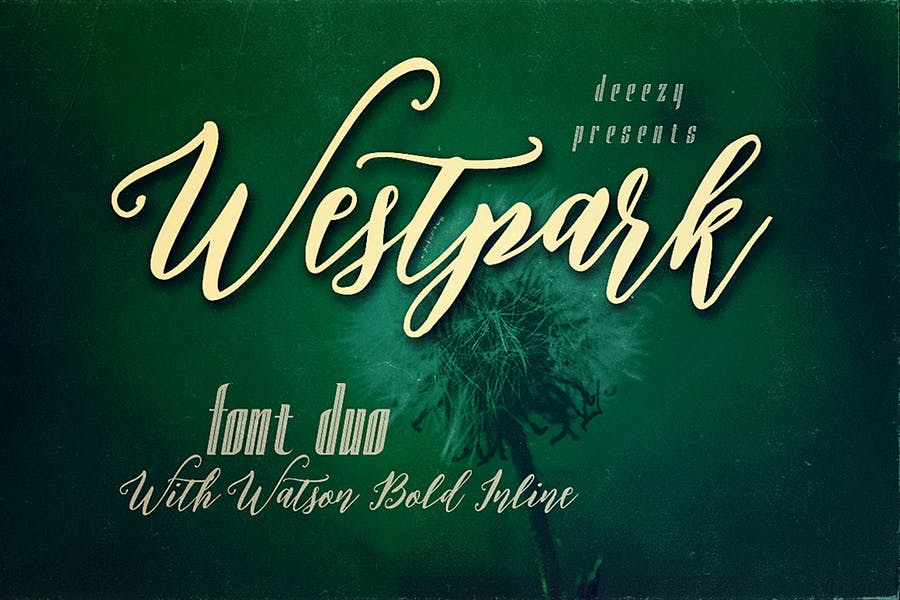
Westpark Script Font Duo
Westpark Script Font Duo is perfect for elegant park branding, upscale outdoor venue signage, sophisticated garden event materials, luxury landscape design, premium botanical gardens, refined nature retreat identity, elegant outdoor wedding stationery, high-end arboretum communications, sophisticated eco-tourism campaigns, upscale outdoor dining establishments, refined park district materials, and graceful natural storytelling.
Westpark Script Font Duo is exciting because it masterfully combines the refined elegance of sophisticated landscape design with the natural beauty of park environments through two harmoniously paired typefaces that work together like perfectly manicured gardens, creating typographic compositions that celebrate both human artistry and natural splendor.
The Westpark Script Font Duo family includes refined variations: Westpark Script, Westpark Sans, Elegant flourishes, Natural weights, Garden alternates, and Botanical ornaments, providing designers with a complete sophisticated outdoor typography system to create elegant compositions that honor both natural beauty and refined design.
Cultivate elegant experiences with Westpark Script Font Duo Free Download. This sophisticatedly beautiful typographic pairing brings the refined elegance and natural grace of premium park environments to contemporary design projects. Whether you're creating upscale outdoor venue identities, designing elegant garden event materials, or developing sophisticated nature campaigns, Westpark Script Font Duo delivers unmatched refinement and natural appeal.
The font duo's elegantly crafted relationship mirrors the perfect harmony found in sophisticated landscape design - the script component provides flowing organic beauty and natural grace, while the sans element adds structured elegance and refined clarity. Together, they create typographic compositions that feel like beautifully designed outdoor spaces.
Westpark Script Font Duo excels in creating distinguished brand experiences for businesses celebrating refined outdoor experiences, luxury hospitality, and sophisticated nature appreciation. Its elegant presence transforms ordinary communications into invitations to experience the finest that nature and design can offer together.
Professional designers appreciate how Westpark Script Font Duo offers incredible versatility in upscale outdoor and hospitality design applications. The complementary styles work beautifully together or independently, allowing for sophisticated typographic arrangements that guide audiences through elegant natural experiences with grace and refinement.
This remarkable font pairing brings instant sophistication to premium outdoor ventures and nature-focused luxury businesses. From high-end botanical gardens to exclusive outdoor event venues, Westpark Script Font Duo creates lasting impressions that communicate elegance, natural beauty, and the refined appreciation of outdoor excellence.